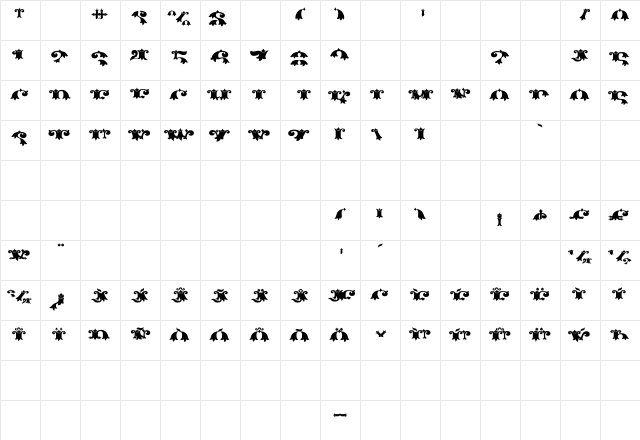
Gold Standard Fill Half Regular
Design Context for Gold Standard Fill Half
Gold Standard Fill Half is a composed and adaptable typeface that performs quietly and consistently across a wide range of design contexts.